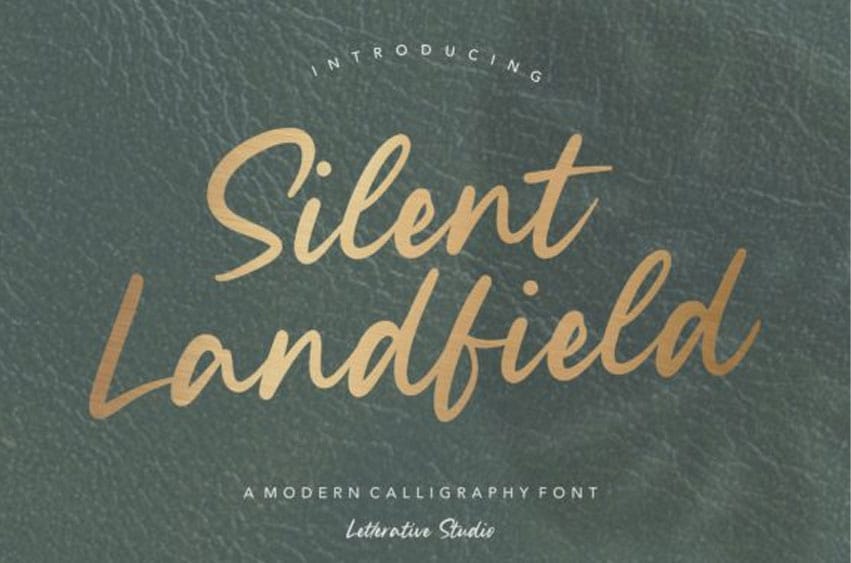
Silent Landfield Font is a genuinely original and modern handwritten font.
It has a casual style, and it will enhance each of your favorite design ideas.
Silent Landfield Font is a genuinely original and modern handwritten font.
It has a casual style, and it will enhance each of your favorite design ideas.